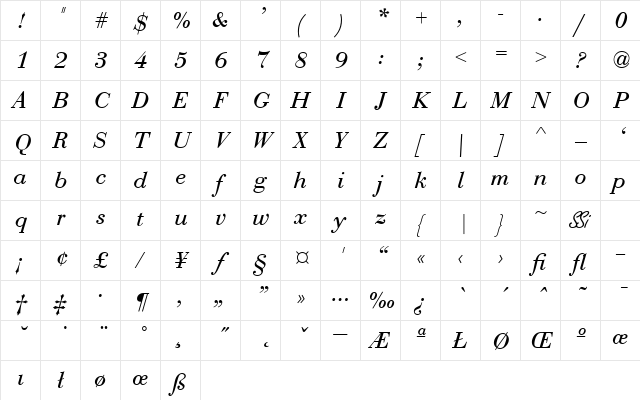
Bodoni Recut Condensed SSi Condensed Italic
Style: Condensed Italic
Bodoni Recut Condensed SSi Condensed Italic
Design Context for Bodoni Recut Condensed SSi
Bodoni Recut Condensed SSi is a composed and adaptable typeface that performs quietly and consistently across a wide range of design contexts. The slanted form adds forward momentum and visual energy. Its narrow stance lets it pack a punch even in space-constrained designs.
Pro Tip: Use Bodoni Recut Condensed SSi for emphasis, pull quotes, and subheadings where its slanted energy can add rhythm to the layout.